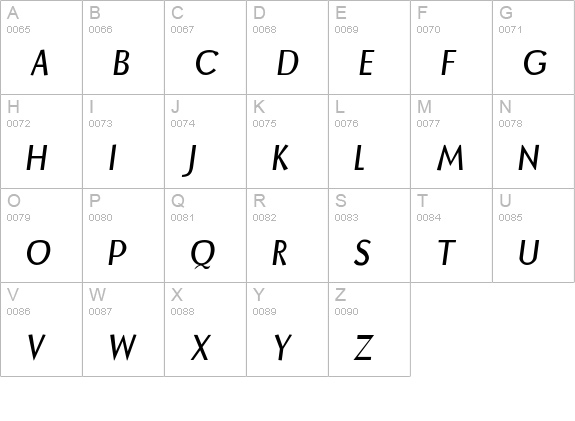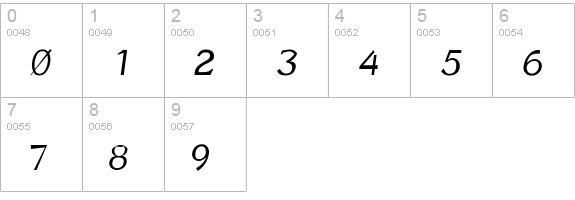
BorzoiBoldItalic Font Details
BorzoiBoldItalic is a striking and elegant typeface that captures the essence of sophistication and grace. Its bold and italic design exudes a sense of luxury and modernity, making it perfect for adding a touch of class to any design project. This unique font is versatile and can be used for a variety of purposes, from branding to editorial design. Its sleek curves and sharp angles create a harmonious blend of strength and elegance, making it a standout choice for those looking to make a statement. The best part? BorzoiBoldItalic is completely free to download at FontsMarket.com. So whether you're a professional designer or a hobbyist looking to elevate your projects, this font is a must-have in your collection. Download it today and unleash your creativity with BorzoiBoldItalic!